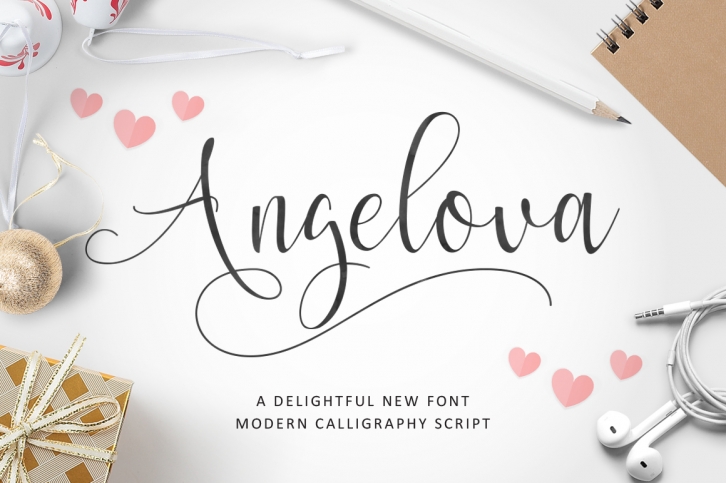
Angelova Script FONT Download
Angelova Script Font Download
Angelova Script is a gorgeous font that was realeased on July 27, 2017. The font can be used in many style contexts and design environments. Perfect for invitations, magazines, websites, logos, and more! It was designed by IanMikraz and the file size is 5.16 MB. Thanks for checking out this font!